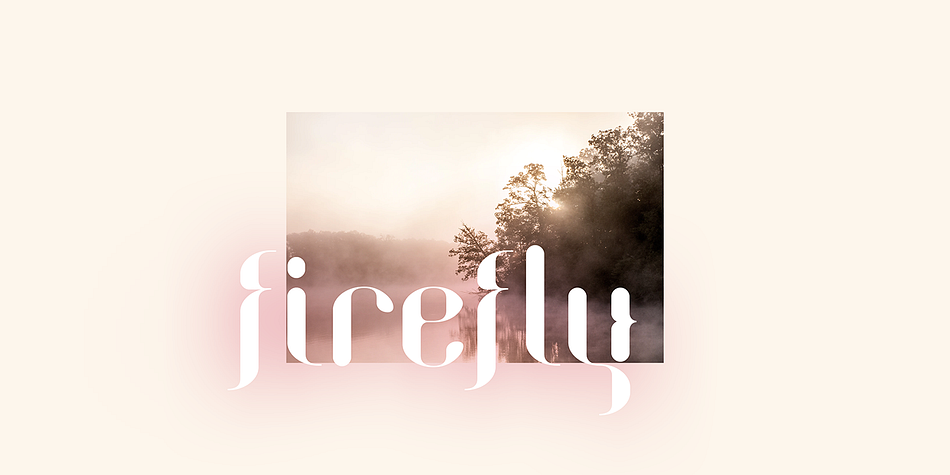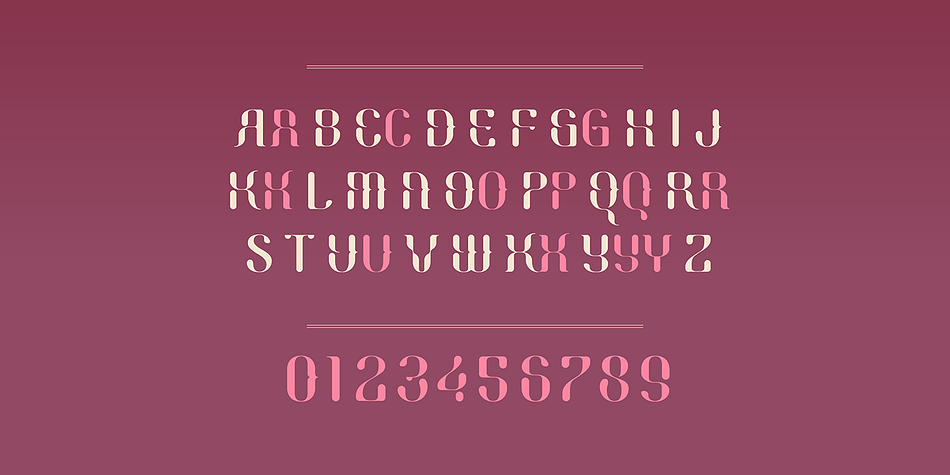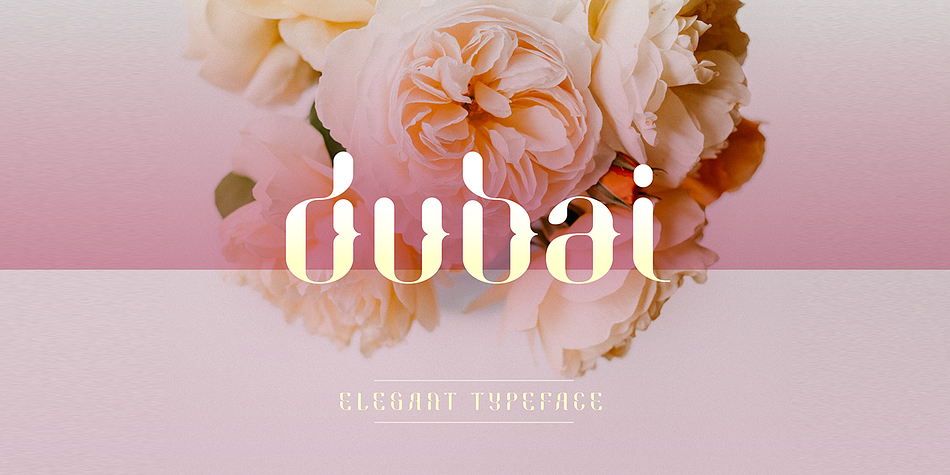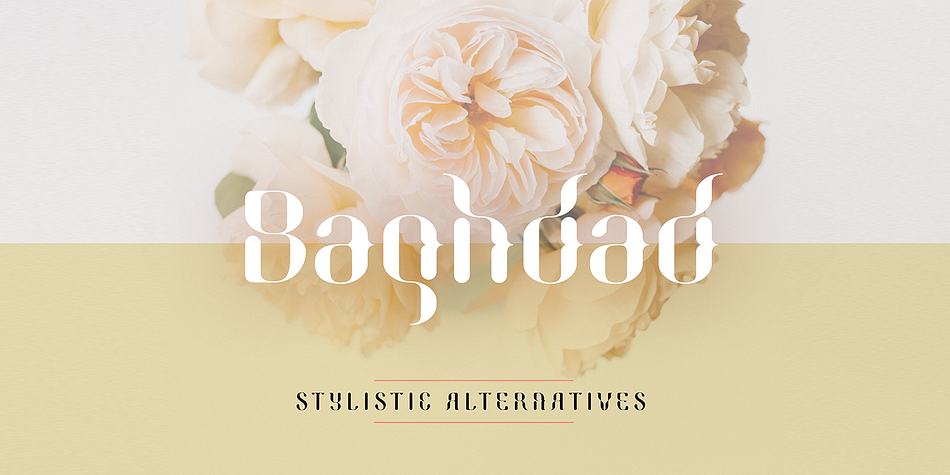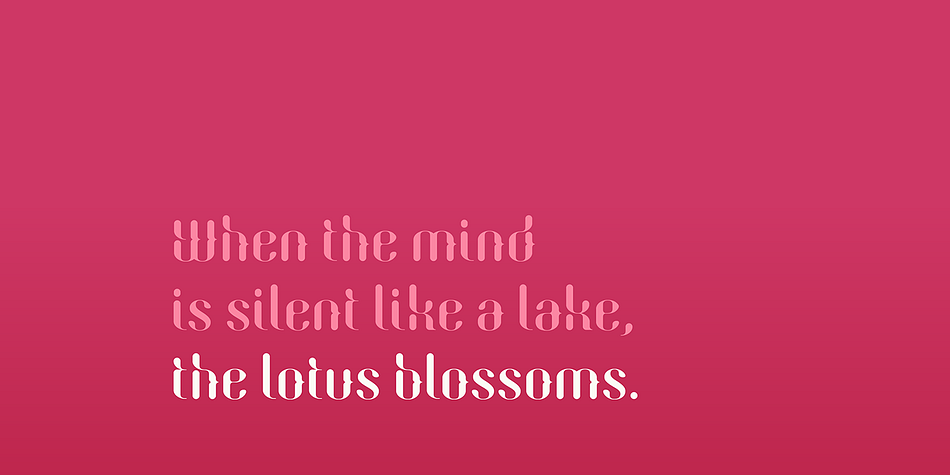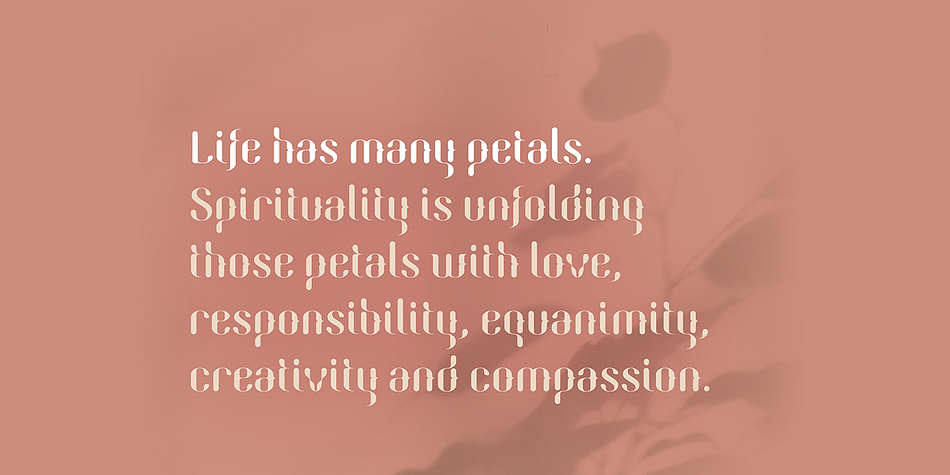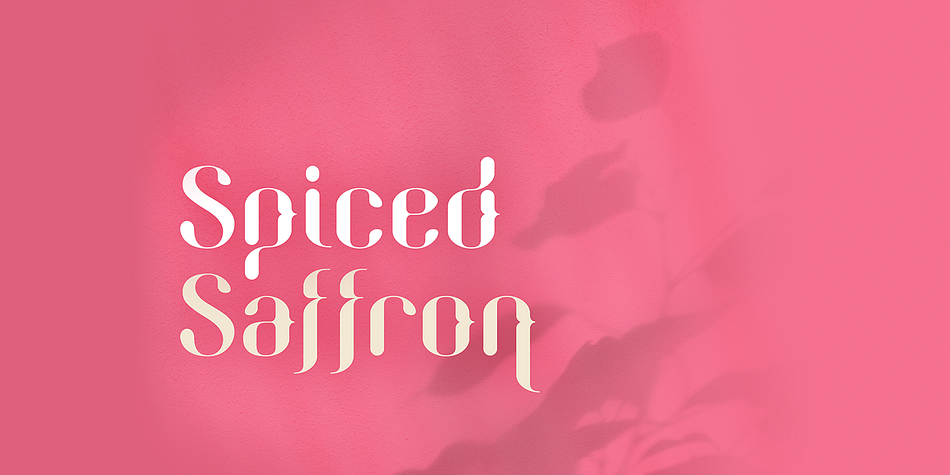
Designed by Craig Stainton, SB Dubai is a display and display sans font family published by SelfBuild Type Foundry.
SB Dubai is an elegant display font with lots of alternative glyphs.